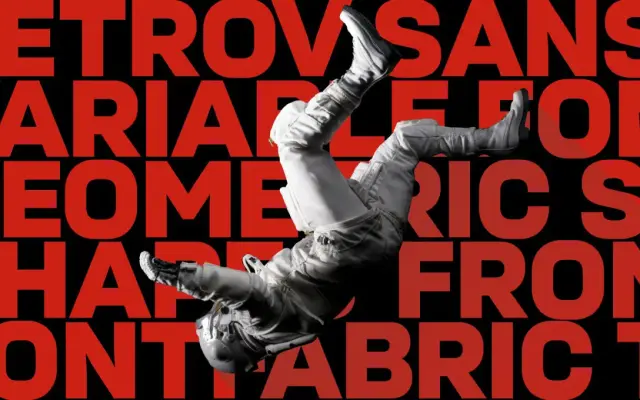
Petrov Sans
Fontfabric · Asen Petrov, Stefan Yatanski, Svetoslav Simov · 2023
A geometric sans from Fontfabric with nine weights, matching italics and a variable font, covering Extended Latin and Cyrillic across 130-plus languages.
Designed by Asen Petrov and refined by Stefan Yatanski, this family spans nine upright weights from Thin to Black with nine matching italics and a variable font file. The geometry is consistent and low-contrast throughout, keeping the face legible at small sizes while giving it enough character for headlines and branding work. Extended Latin and Cyrillic support makes it a practical choice for multilingual publishing and interface design.
A geometric sans-serif with consistent contemporary geometry across a broad weight range, designed with low contrast and futuristic character typical of the geometric genre.